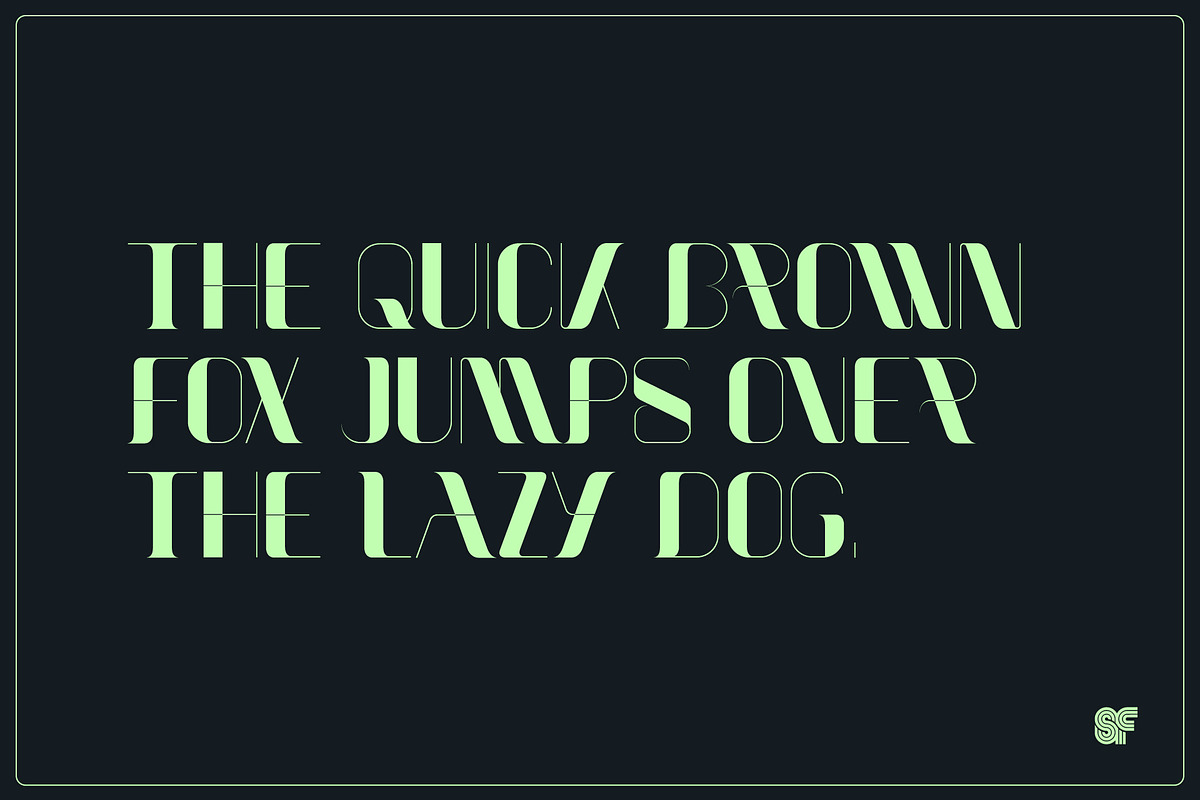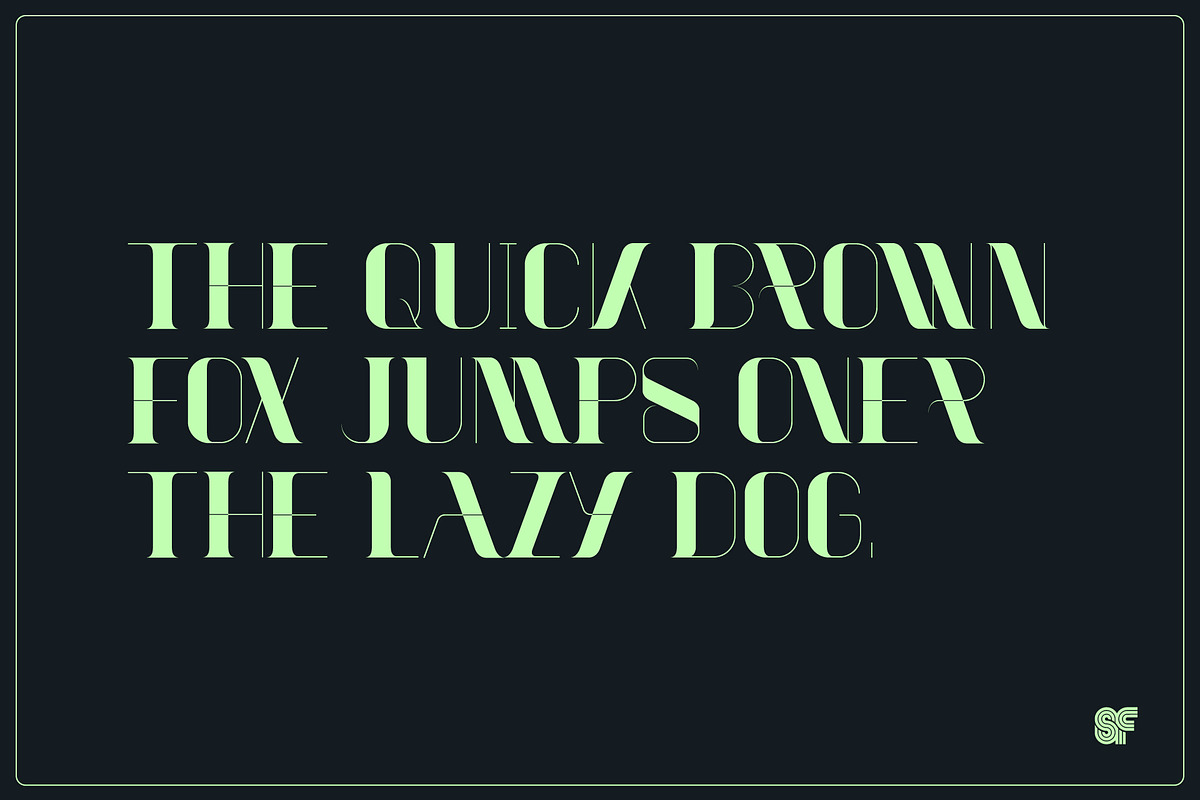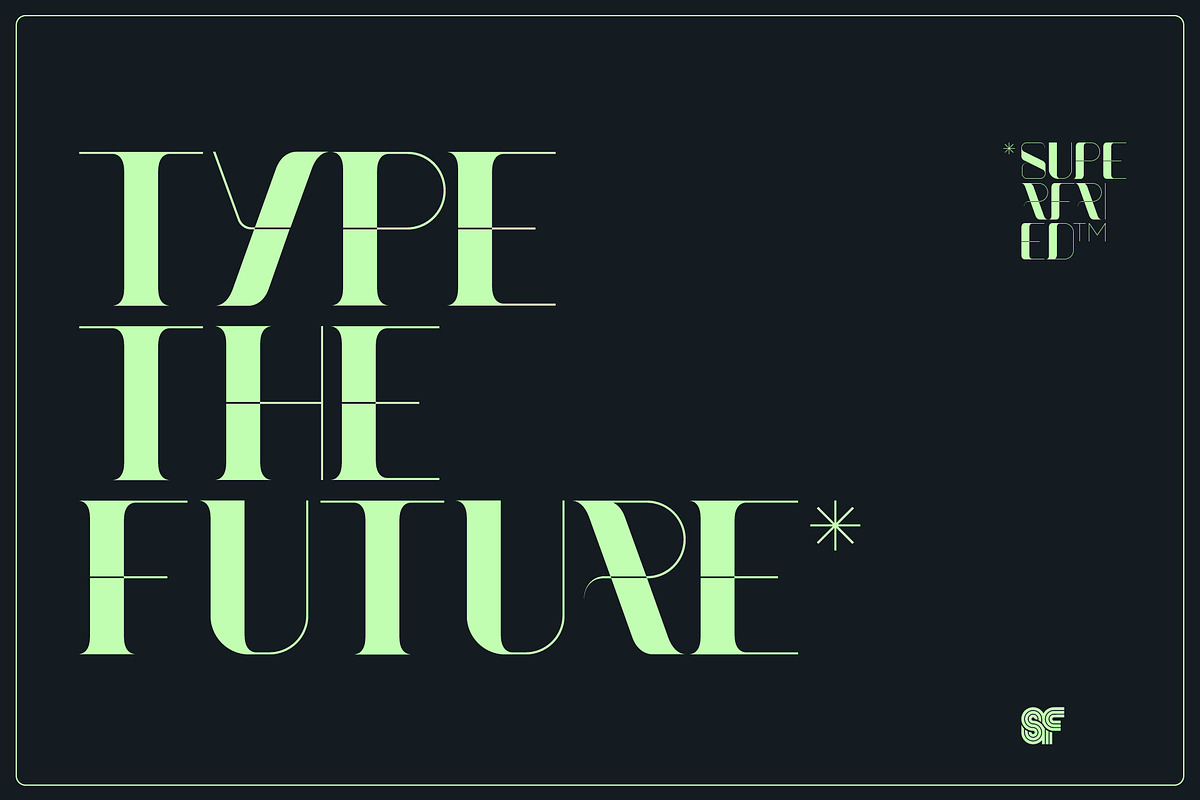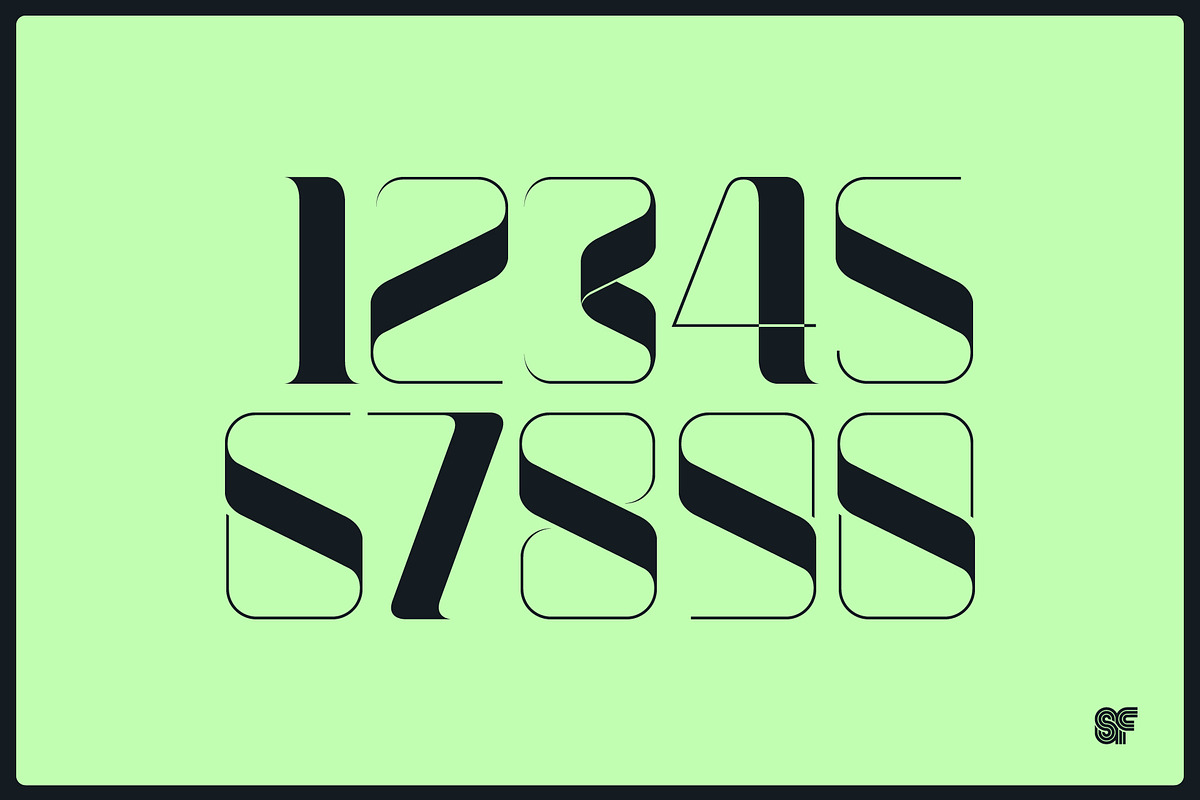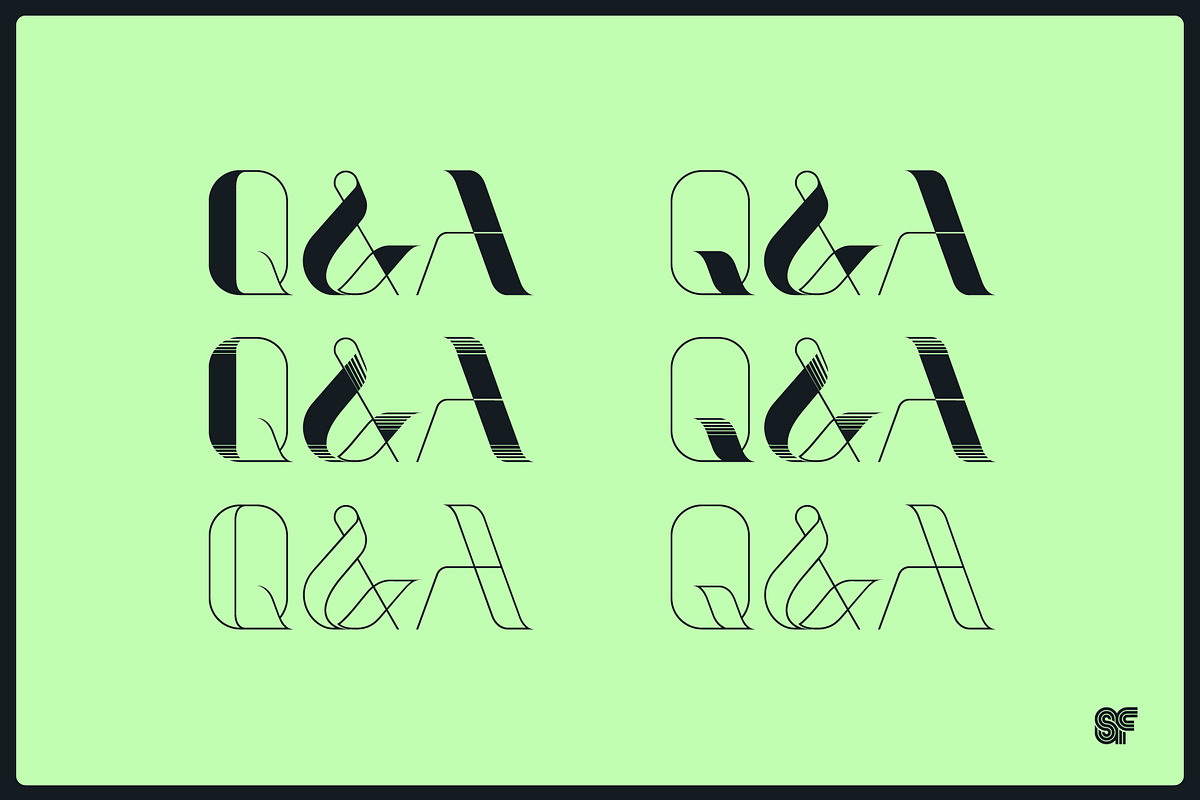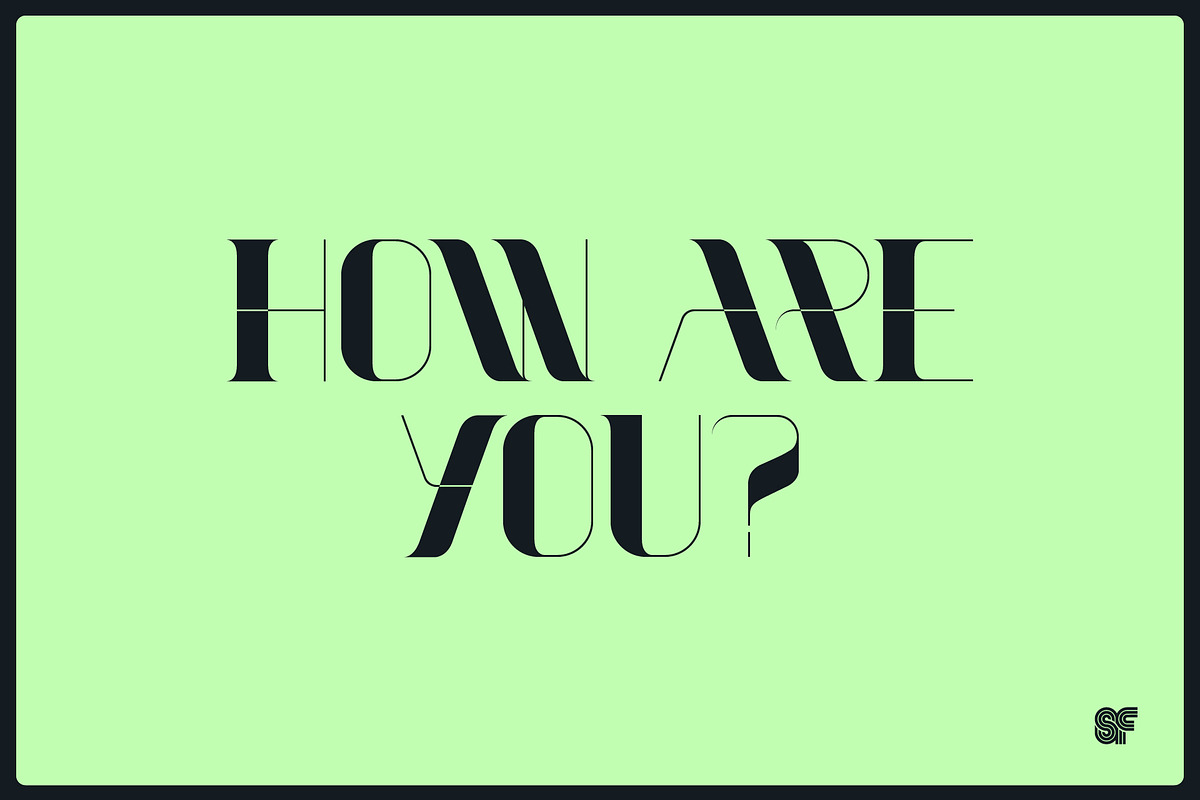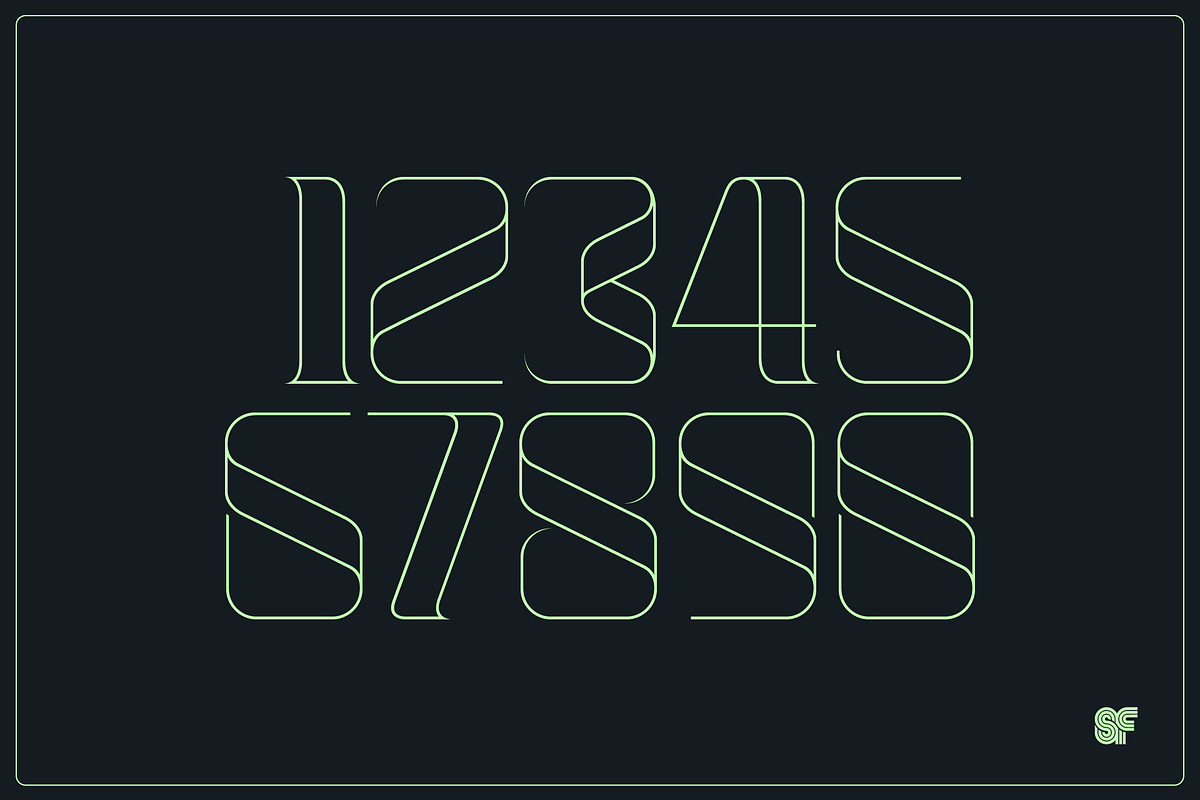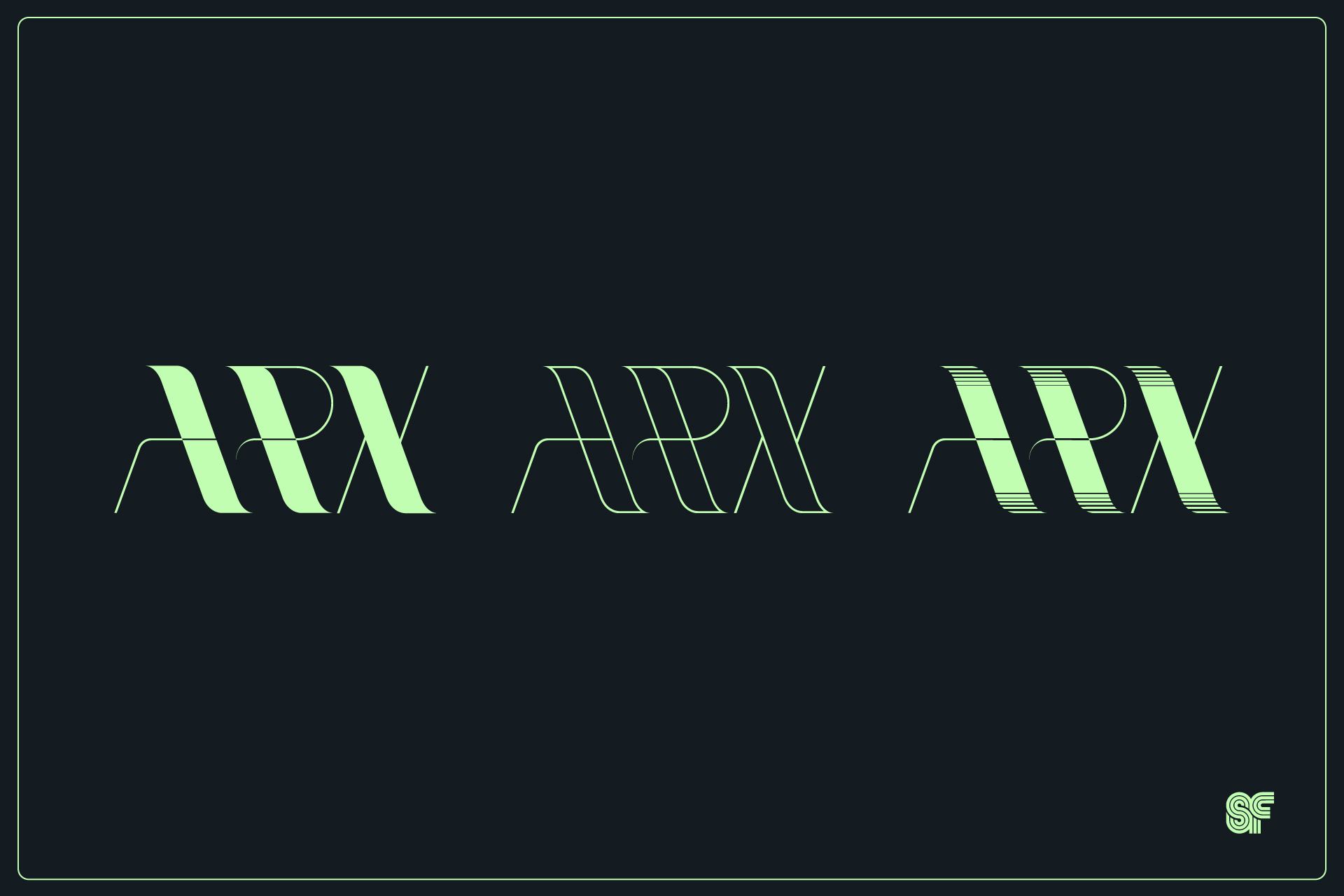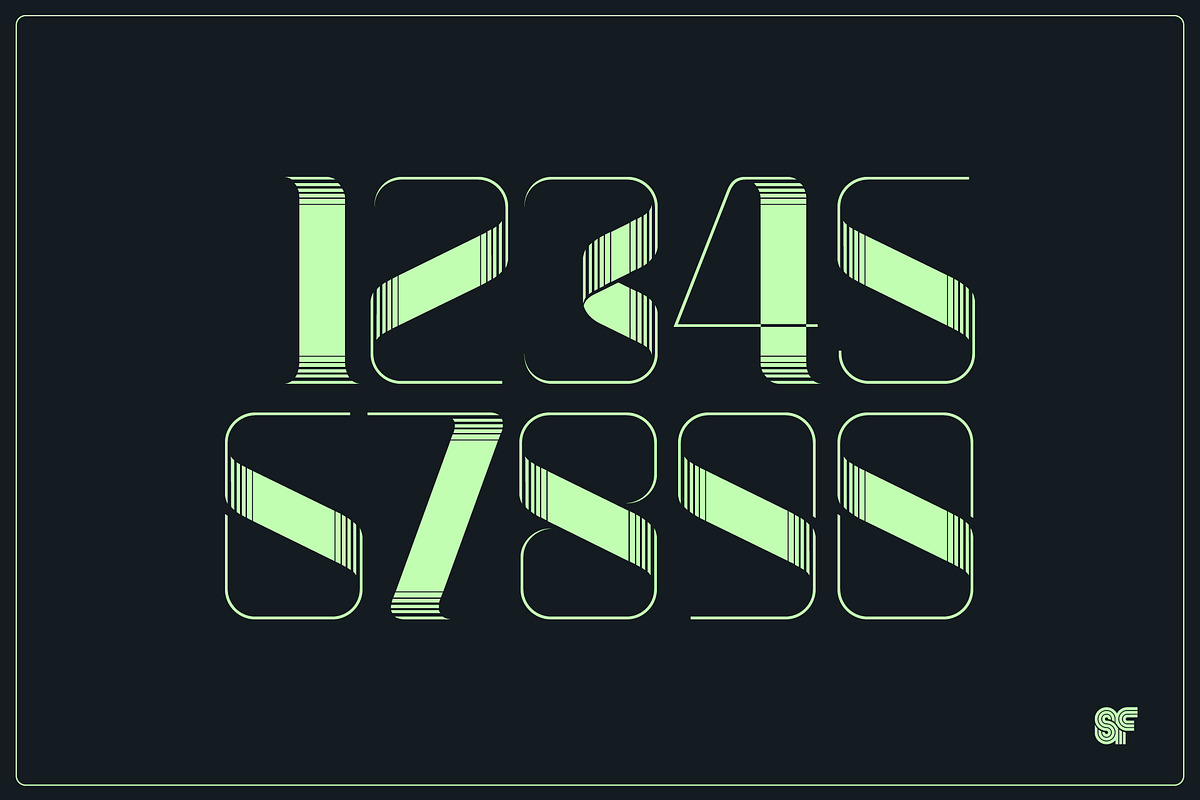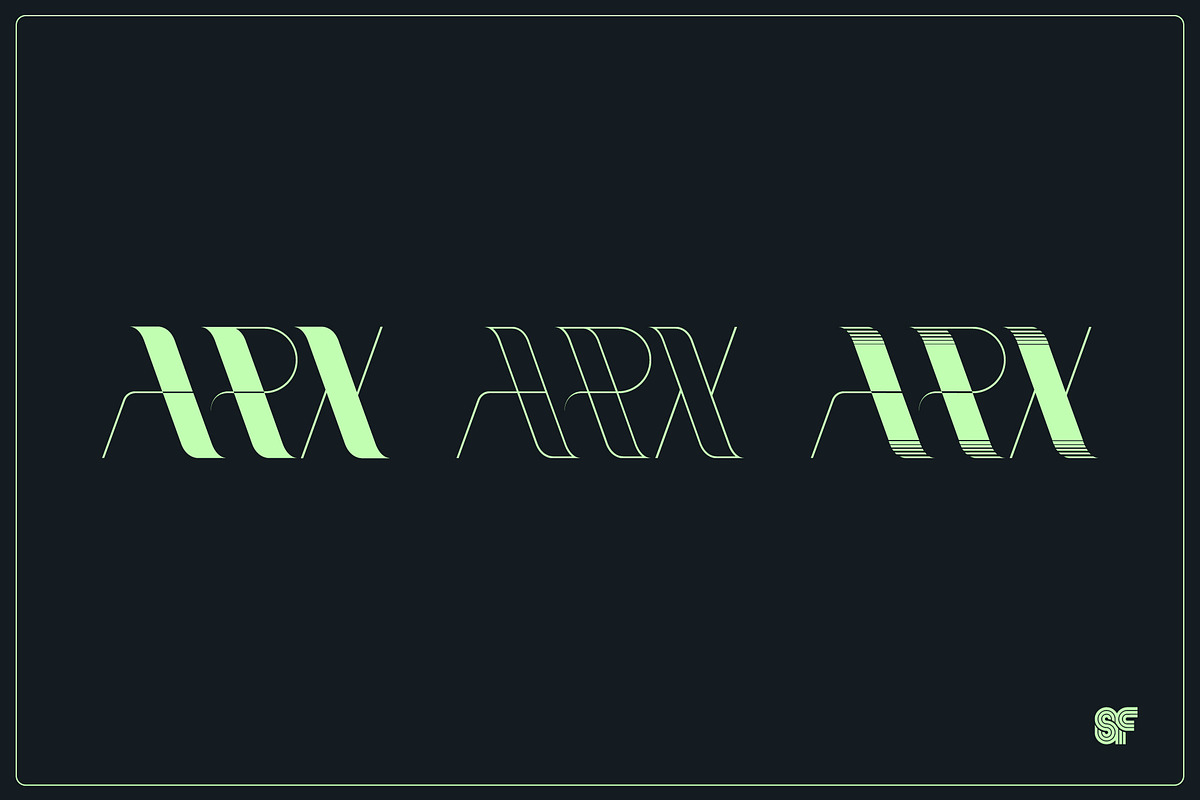
Arx | Display | 3 Fonts + 2 Styles
NEW - Remastered for 2025!
Originally crafted in 2015 by Superfried, Arx is an elegant and intricate display typeface designed for impactful large-scale use. With 266 unique glyphs, its Latin name, meaning 'citadel', reflects its classical features, while the phonetic pronunciation highlights the distinctive arcs that define each character.
This versatile caps typeface is available in three dynamic fonts: display, fade, and outline, each offering the opportunity to switch between a softer sans or sharp serif style via the shift key. Perfect for branding, editorial design, and web applications, Arx combines sophistication with quirky, unexpected character traits, making it an ideal choice when unique standout is essential.